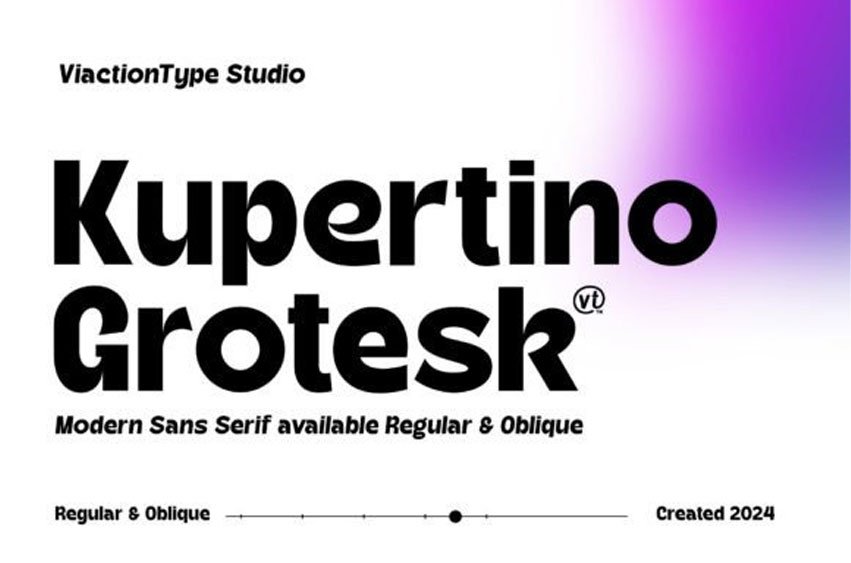
Kupertino Grotesk Font is a modern sans serif font designed for clarity and impact.
With two distinct styles—regular and oblique—Kupertino Grotesk offers versatility and aesthetic appeal suitable for a wide range of design projects.